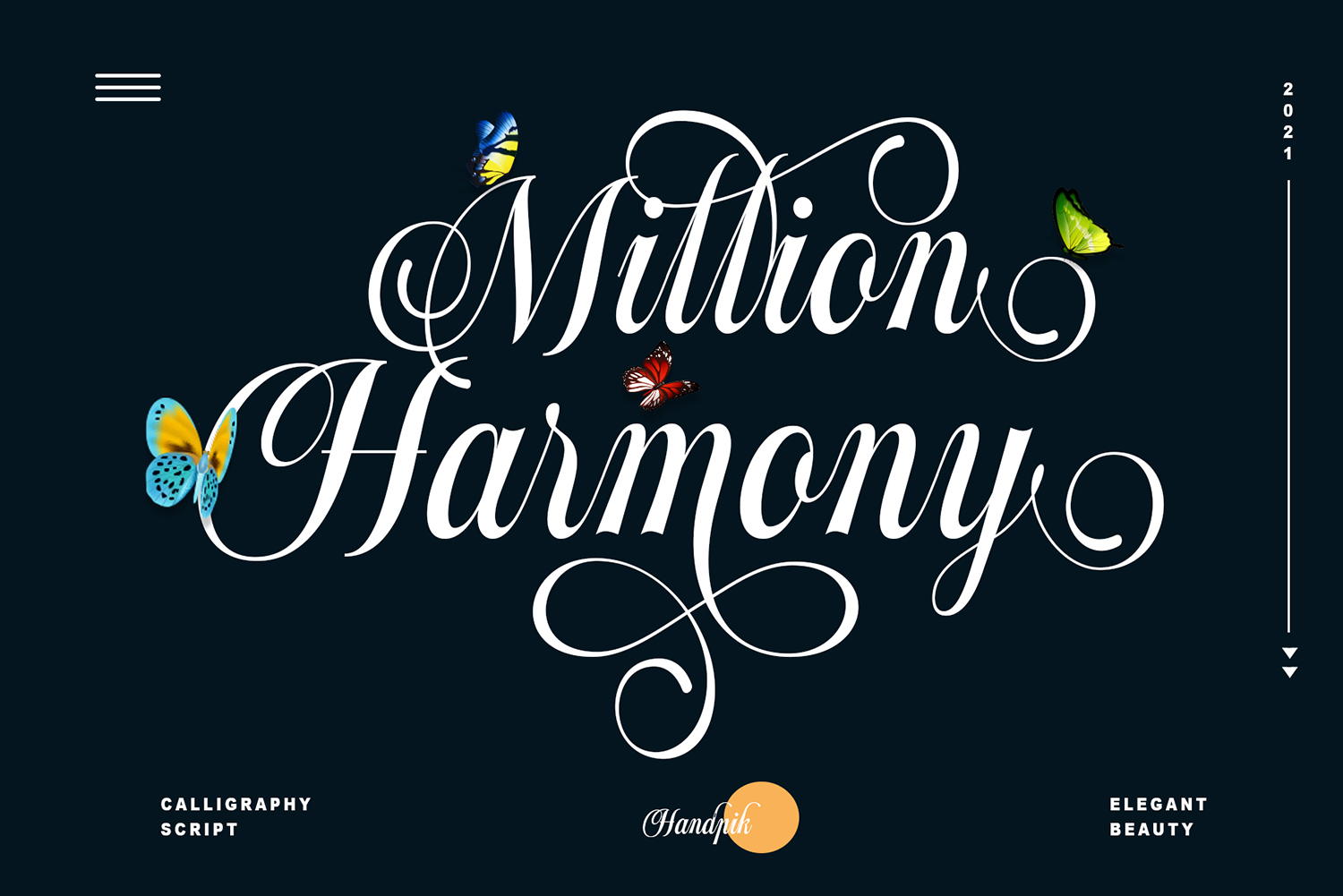
Million Harmony Free Font
Discover the enchantment of Million Harmony Free Font, a versatile script font with a wide range of applications. From greeting cards to headlines, this font is your go-to choice, guaranteed to infuse a romantic ambiance into your next project. This free typeface was designed by a talentedΒ Handpik Store. If you like it don’t forget to check out the full version.